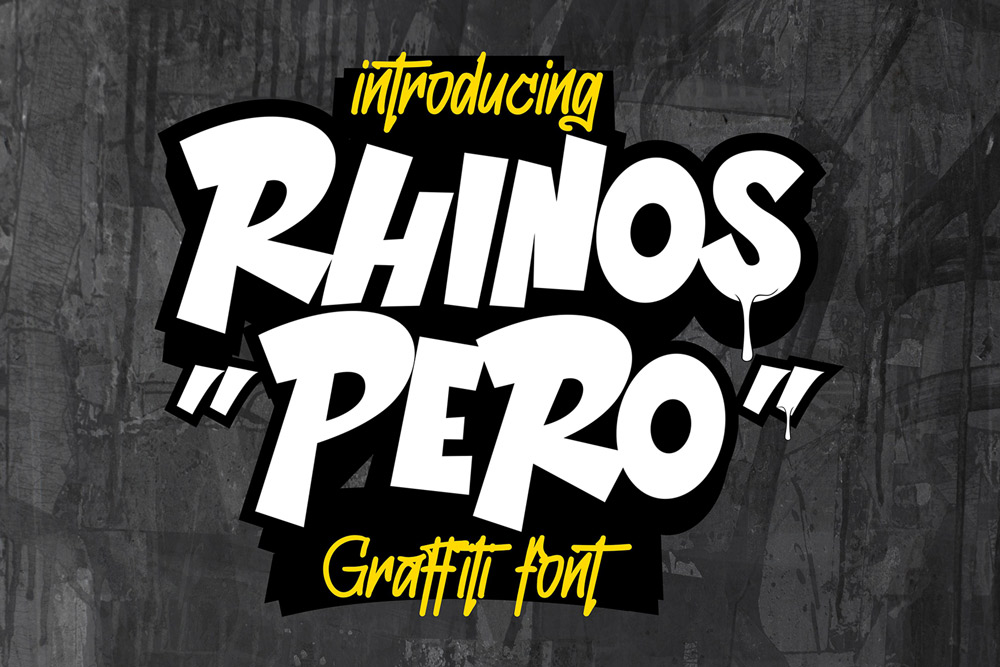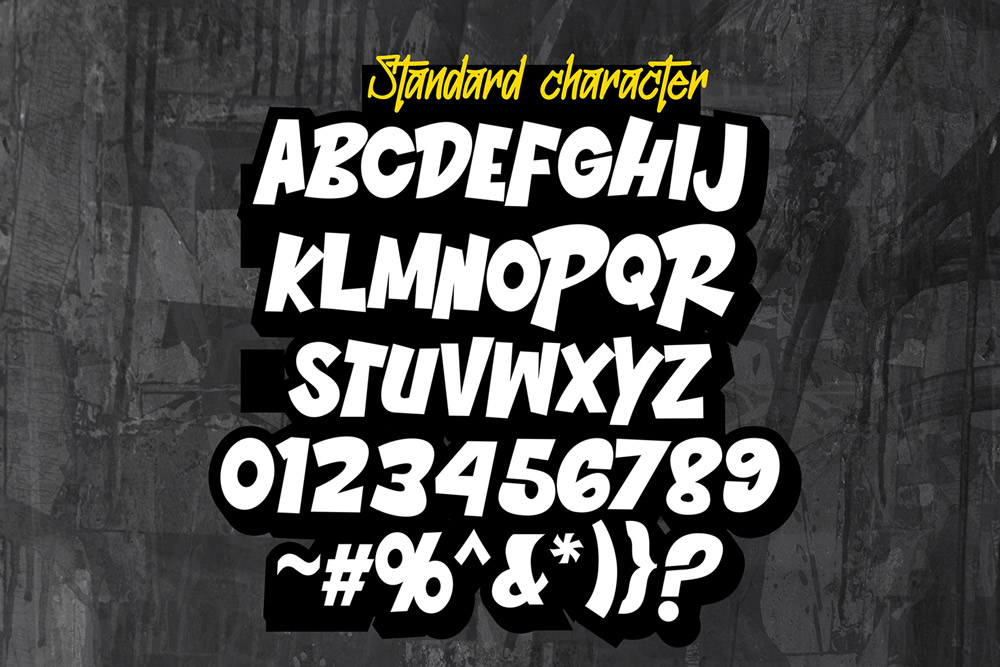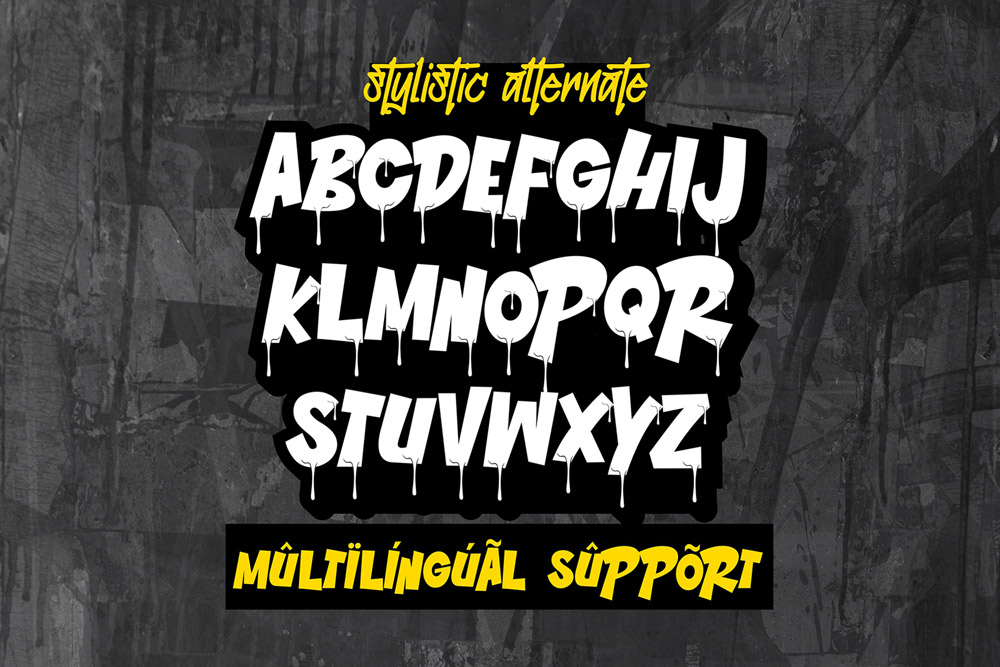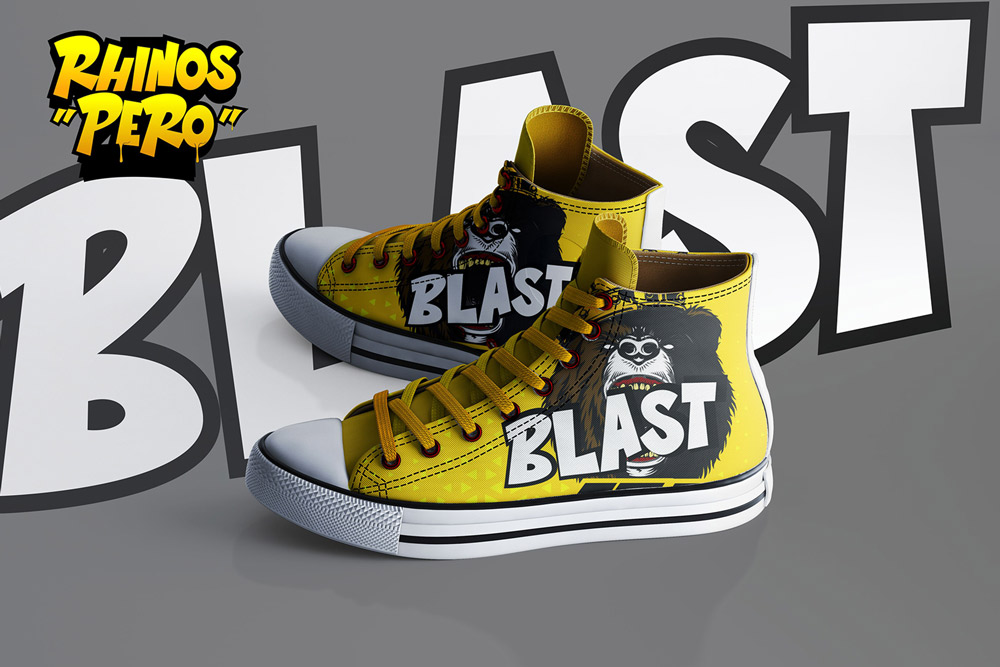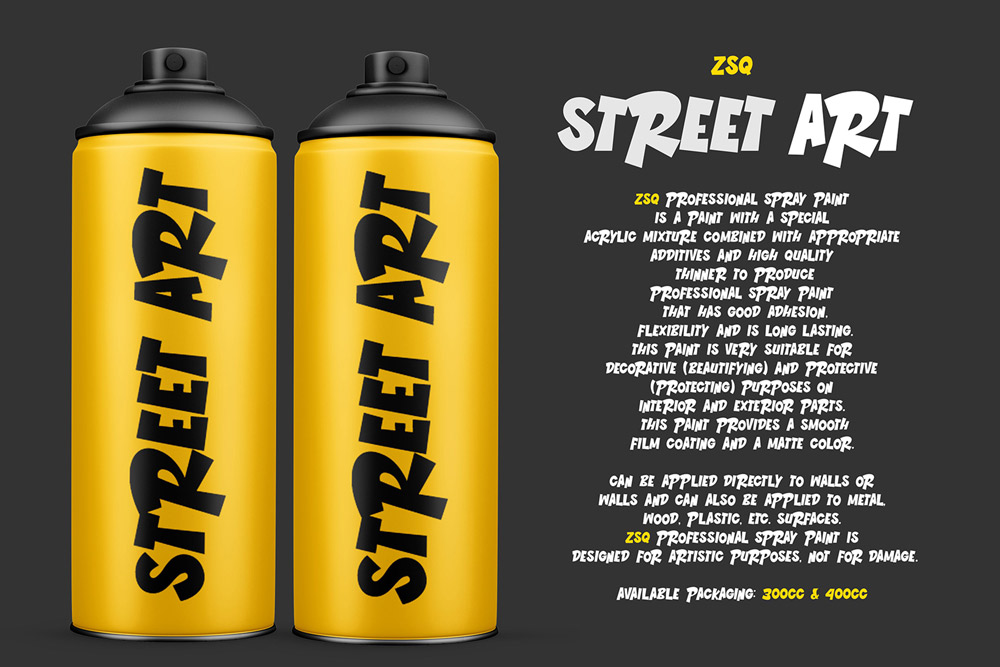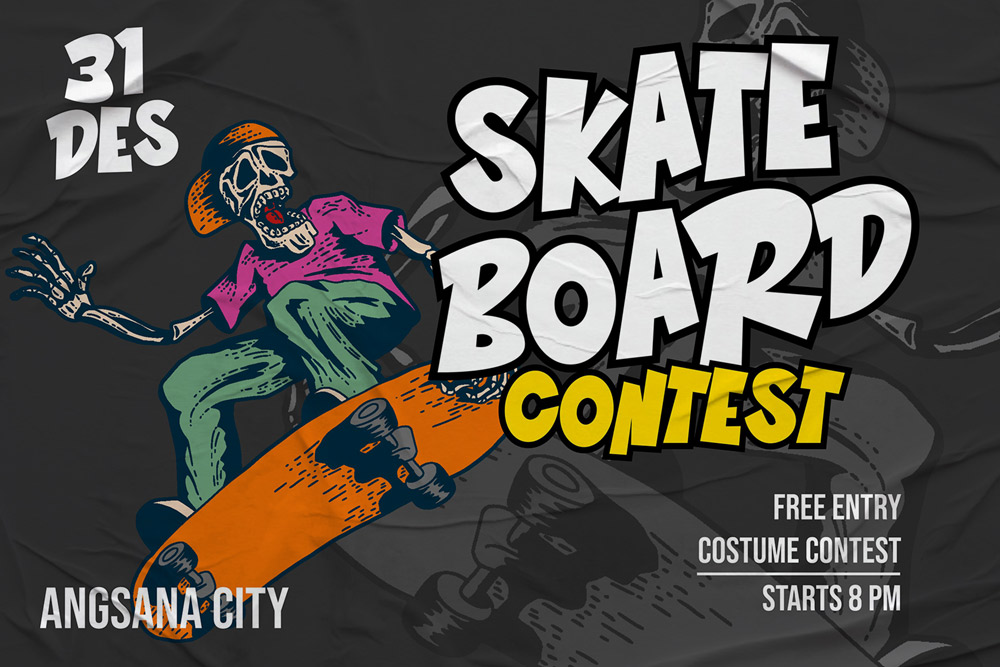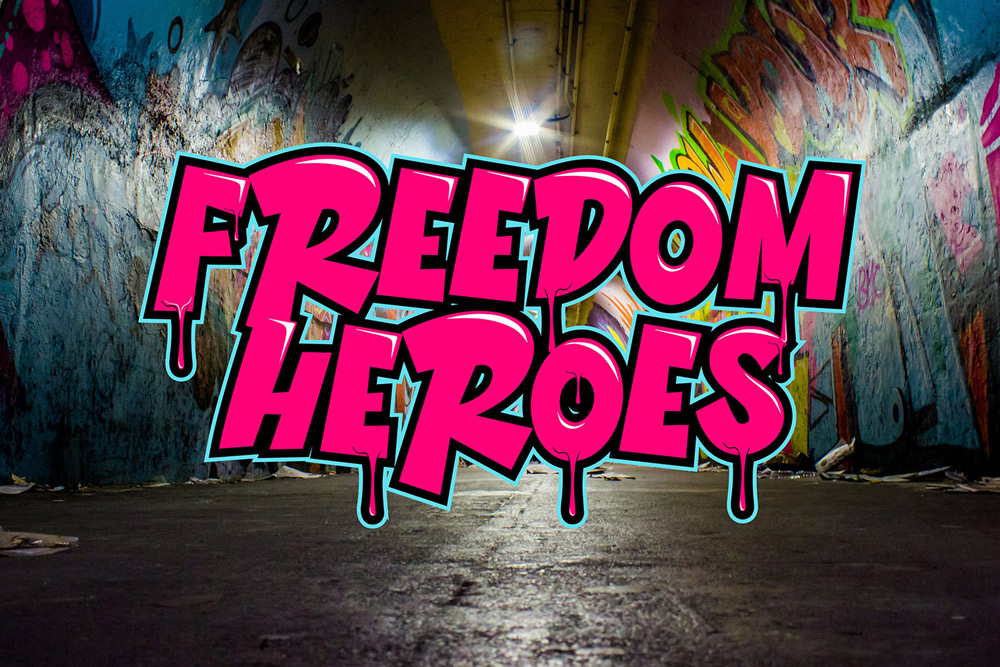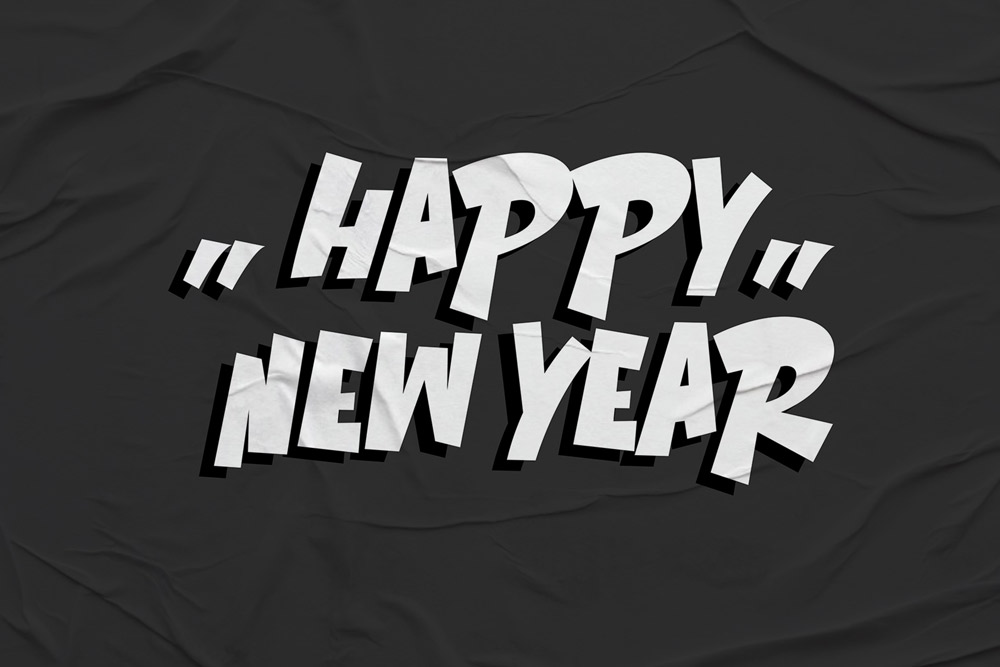
About Rhinos Pero | Graffiti Font
Rhinos Pero – Thick and Dripping Graffiti Font
Rhinos Pero is a bold and aggressive graffiti font designed to bring raw street energy into your creative projects. Built with thick strokes and intense dripping details, this dripping graffiti font captures the essence of real urban tagging culture. Whether you’re working on streetwear branding, music artwork, or bold poster design, Rhinos Pero graffiti font delivers a powerful visual identity that stands out instantly.
This urban graffiti font is crafted for designers who want to push boundaries and create fearless typography. With its heavy structure and melting effects, Rhinos Pero transforms simple text into a striking visual statement, making it one of the most impactful graffiti display fonts available.
Built with Thick Strokes and Dripping Attitude
Rhinos Pero graffiti font combines bold thickness with organic dripping shapes, creating a unique balance between structure and chaos. This graffiti font is inspired by authentic street bombing styles, where letters are heavy, loud, and impossible to ignore. The dripping effect adds movement and emotion, making your typography feel alive.
Every character in this dripping graffiti font is designed to create maximum impact. Whether used in large headlines or layered compositions, Rhinos Pero urban font ensures your design stays bold, expressive, and visually dominant.
A Graffiti Font That Commands Attention
If you’re searching for a graffiti font that truly stands out, Rhinos Pero is built for you. Its thick lettering style ensures high readability while maintaining an edgy street aesthetic. This graffiti display font is perfect for projects that demand strong visual presence, such as posters, album covers, and apparel design.
The dripping details in this urban graffiti font create depth and texture, giving your typography a handcrafted and authentic feel. It’s not just a font—it’s a visual experience rooted in street culture.
Complete Character Set & Typography Features
Rhinos Pero – Thick and Dripping Graffiti Font is designed with versatility and functionality in mind. This professional graffiti font includes a full set of features to support your creative workflow.
✔ Uppercase Characters
Bold uppercase letters designed with strong graffiti font style to ensure maximum visibility and impact.
✔ Multilingual Support
This graffiti typeface supports multiple languages, making it suitable for international projects and global branding.
✔ Numbers & Punctuation
A complete set of numbers and punctuation provides flexibility for all types of design using this urban graffiti font.
✔ Stylistic Alternates (Melted/Dripping)
Includes unique stylistic alternates featuring melted and dripping variations, allowing you to customize your typography and create more dynamic compositions with this dripping graffiti font.
- Thick and bold graffiti font design
- Unique dripping and melted effects
- Authentic street-style lettering
- Includes stylistic alternates for customization
- High readability for display use
- Perfect for urban branding and streetwear
- Works across digital and print media
- Designed for modern creative professionals
Why Designers Love Rhinos Pero
Designers love Rhinos Pero graffiti font because it offers a perfect combination of bold structure and artistic detail. This graffiti font stands out with its thick strokes and dripping effects, making it ideal for projects that need strong visual impact.
One of the biggest advantages of this dripping graffiti font is its versatility. The stylistic alternates allow designers to experiment and create unique typography compositions without extra effort. This makes Rhinos Pero urban font a powerful tool for branding and creative exploration.
Another reason designers choose this graffiti display font is its authenticity. The dripping details feel natural and organic, reflecting real street art styles. This gives your designs a genuine urban aesthetic that resonates with modern audiences.
Perfect For Creative Projects
Rhinos Pero graffiti font is ideal for a wide range of design applications:
- Streetwear branding
- Graffiti posters and flyers
- Music album covers
- Social media graphics
- Logo design with urban style
- Merchandise and apparel
If you need a graffiti font with dripping effect that delivers bold results, Rhinos Pero is the perfect choice.
Powerful Closing
Rhinos Pero – Thick and Dripping Graffiti Font is more than just a typeface—it’s a statement of bold creativity. With its heavy strokes and dripping energy, this graffiti font transforms your designs into unforgettable visual experiences.
If you’re ready to elevate your work with a powerful dripping graffiti font, Rhinos Pero is your ultimate choice. Make your typography louder, stronger, and more expressive—because ordinary is not an option.